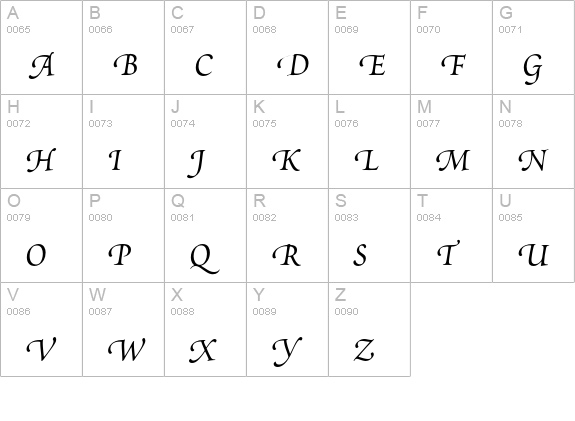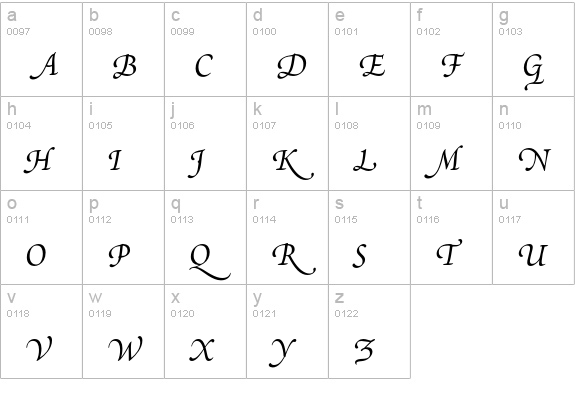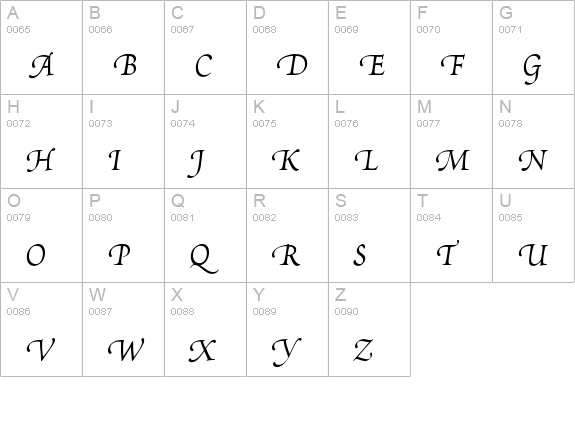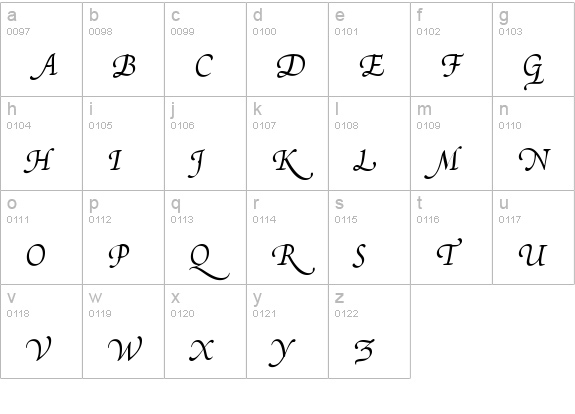
Poetica Supp Swash Capitals II Font Details
Poetica Supp Swash Capitals II font exudes elegance and sophistication with its ornate swashes and intricate details. This stunning typeface is perfect for adding a touch of luxury to your design projects. The delicate curves and flourishes of the swash capitals bring a sense of refinement and grace to any text. What sets Poetica Supp Swash Capitals II font apart is its versatility - it can be used for anything from wedding invitations to logo designs to branding materials. The timeless design of this font ensures that it will never go out of style. Best of all, Poetica Supp Swash Capitals II font is completely free to download at FontsMarket.com. Whether you're a seasoned designer looking to add a new font to your collection or a beginner searching for the perfect typeface for your next project, Poetica Supp Swash Capitals II font is a fantastic choice. Download it today and elevate your designs with this exquisite and sophisticated font.